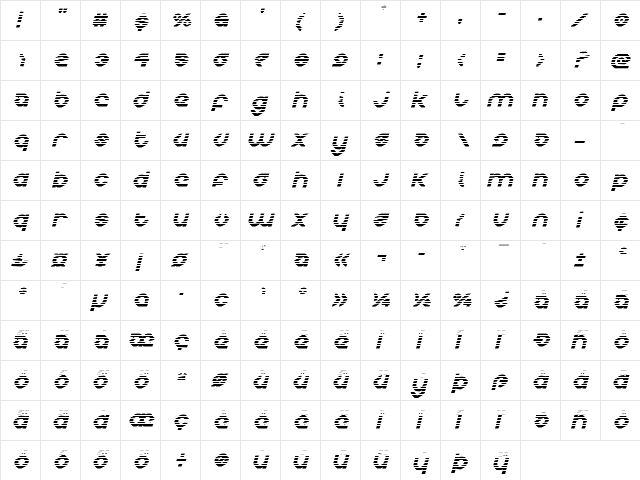
Charlie's Angles Gradient Italic Italic
Design Context for Charlie's Angles Gradient Italic Typeface
Charlie's Angles Gradient Italic takes a measured approach to typography — its balanced proportions and neutral character make it a reliable workhorse for both digital and print work. Its italic angle brings a sense of urgency and motion to the letterforms.
Pro Tip: Use Charlie's Angles Gradient Italic for emphasis, pull quotes, and subheadings where its slanted energy can add rhythm to the layout.